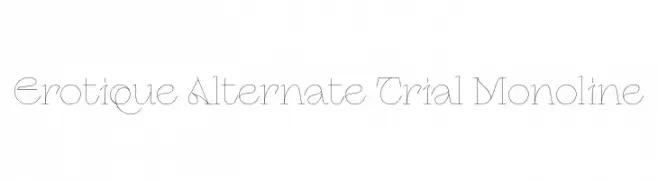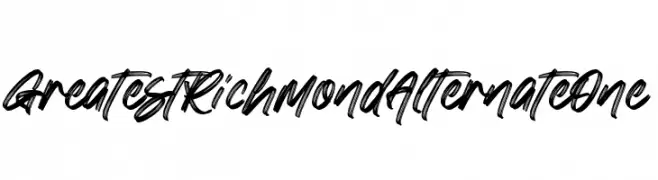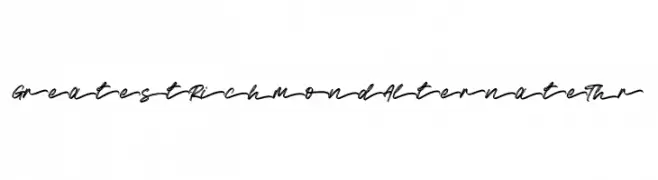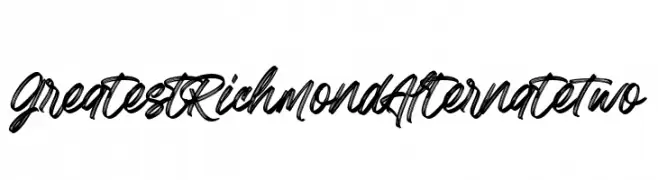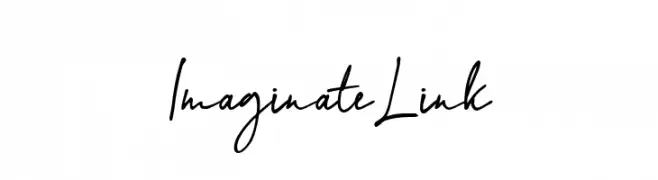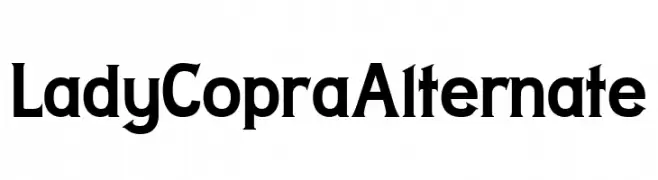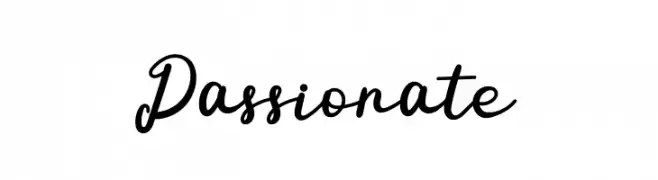
A monoline font with elegant curves and artistic flair, blending traditional and modern elements.
A bold, cursive font with elegant curves and a strong presence.
A bold, expressive handwritten font with dynamic, fluid strokes.
A bold, dynamic handwritten font with brush-like strokes.
A bold, brush-style font with dynamic, expressive strokes.
An elegant and flowing script font with graceful curves and artistic flair.
A bold serif font with a classic yet modern appeal, perfect for impactful headlines.
A playful, casual handwritten font with a smooth, flowing style.
A lively, handwritten script with a modern, flowing style.
A lively, cursive font with a handwritten feel and smooth, flowing strokes.